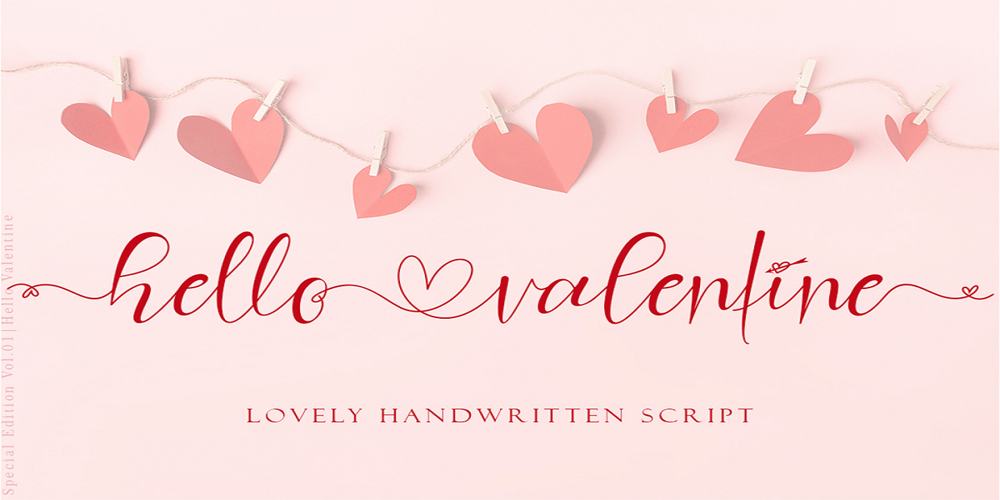
Hello Valentine Font Family was designed by Isroni Yoga Prasetya and published by Yoga Letter. Hello Valentine contains 1 styles and family package options. This pretty font is called hello Valentine. This font is very easy to use, and to bring out a pretty tail is not difficult because there are guides included. This font is perfect for expressing your happiness with your partner. This font is very beautiful and elegant that can be used for Valentine’s Day, weddings, capturing romantic stories, quotes, branding, logos, banners, and more.